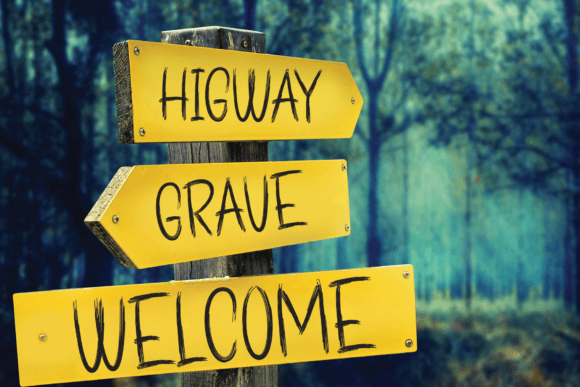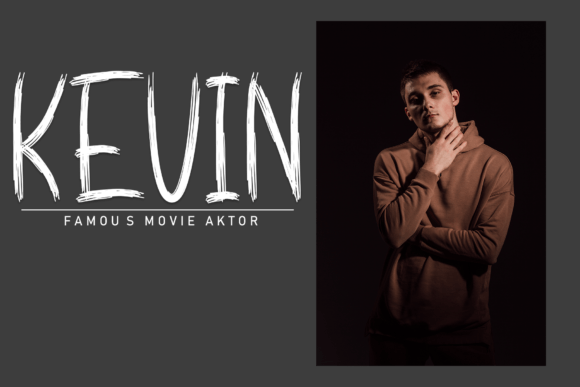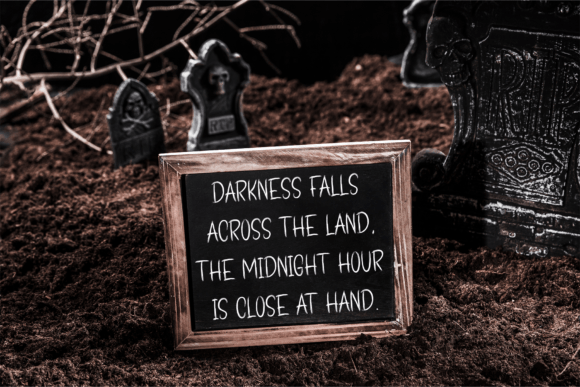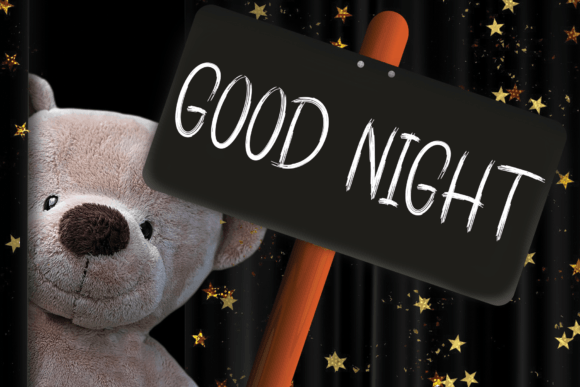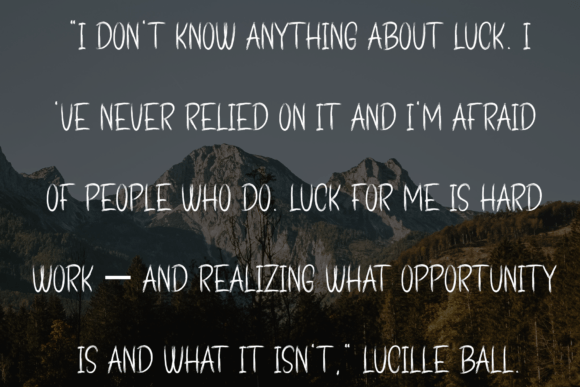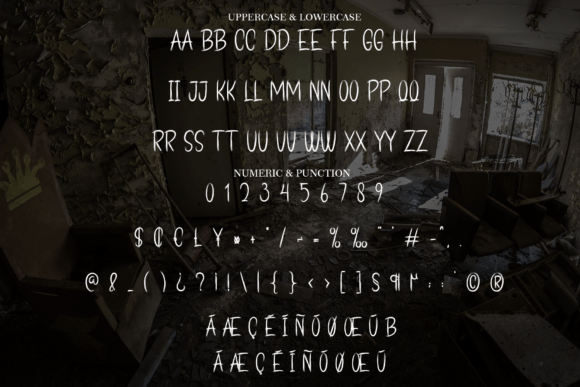
Unleash the Spook: Elevate Your Horror-Themed Projects with Haunted House Font
Are you a designer or crafter looking to add a spine-tingling touch to your horror-themed projects? Look no further than the Haunted House font, a spooky handwritten font that’s sure to send chills down the spines of your audience. In this article, we’ll dive into the eerie world of Haunted House font, exploring its features, uses, and benefits for designers and crafters.
The Haunted House Font: A Spooky Handwritten Font
Haunted House is a unique, handwritten font that’s specifically designed to evoke the eerie and mysterious atmosphere of haunted mansions, abandoned asylums, and creepy carnivals. With its irregular letterforms, uneven spacing, and distressed texture, this font is the perfect addition to any horror-themed project, from movie posters and video game titles to Halloween party invitations and spooky crafts.
Features of Haunted House Font
So, what makes Haunted House font so special? Here are some of its key features:
- Handwritten style: Haunted House font has a distinctive, handwritten look that’s reminiscent of creepy old manuscripts and haunted diaries.
- Irregular letterforms: The font’s irregular letterforms add to its eerie, unsettling atmosphere, making it perfect for horror-themed projects.
- Distressed texture: The font’s distressed texture gives it a worn, aged look that’s perfect for creating a spooky, vintage vibe.
- Easy to read: Despite its eerie appearance, Haunted House font is surprisingly easy to read, making it perfect for use in titles, headings, and body text.
Uses for Haunted House Font
Haunted House font is incredibly versatile, and can be used in a wide range of horror-themed projects, including:
- Movie posters and film titles: Add a touch of horror to your movie posters and film titles with Haunted House font.
- Video game titles and credits: Use Haunted House font to create spooky, eye-catching titles and credits for your horror-themed video games.
- Halloween party invitations: Create spooky, inviting party invitations with Haunted House font.
- Spooky crafts and DIY projects: Use Haunted House font to add a touch of horror to your spooky crafts and DIY projects, such as haunted house decorations, spooky candles, and creepy crafts.
So, why should designers and crafters choose Haunted House font for their horror-themed projects? Here are some benefits:
- Easily recognizable: Haunted House font is instantly recognizable as a horror-themed font, making it perfect for designers and crafters who want to create a spooky atmosphere.
- Highly versatile: Haunted House font can be used in a wide range of horror-themed projects, from movie posters to spooky crafts.
- Unique and eye-catching: Haunted House font is a unique and eye-catching addition to any horror-themed project, guaranteed to grab attention and send chills down the spines of your audience.
In conclusion, Haunted House font is a spooky handwritten font that’s perfect for designers and crafters looking to add a touch of horror to their projects. With its irregular letterforms, uneven spacing, and distressed texture, this font is sure to evoke the eerie and mysterious atmosphere of haunted mansions, abandoned asylums, and creepy carnivals. Whether you’re creating movie posters, video game titles, Halloween party invitations, or spooky crafts, Haunted House font is the perfect choice. So why wait? Download Haunted House font today and unleash the spook in your designs!